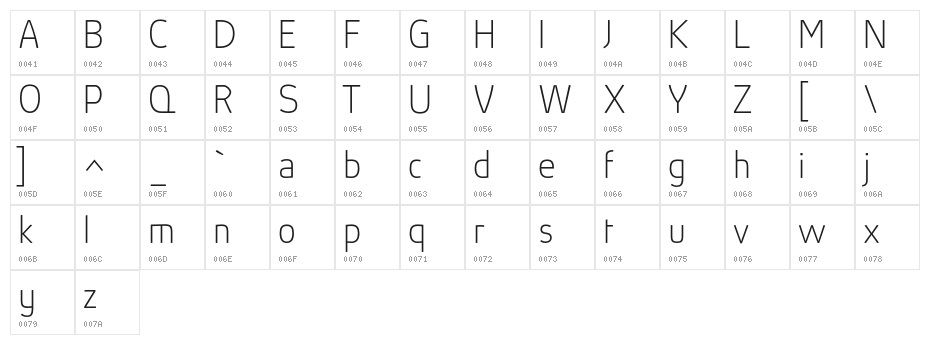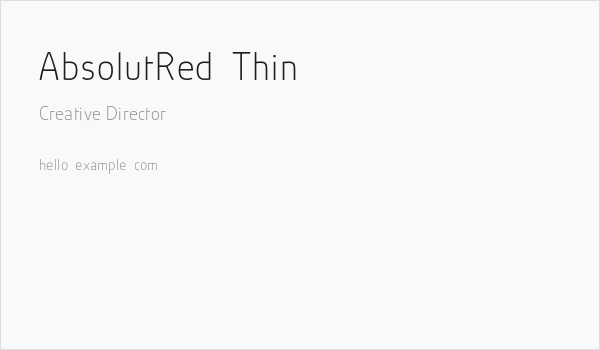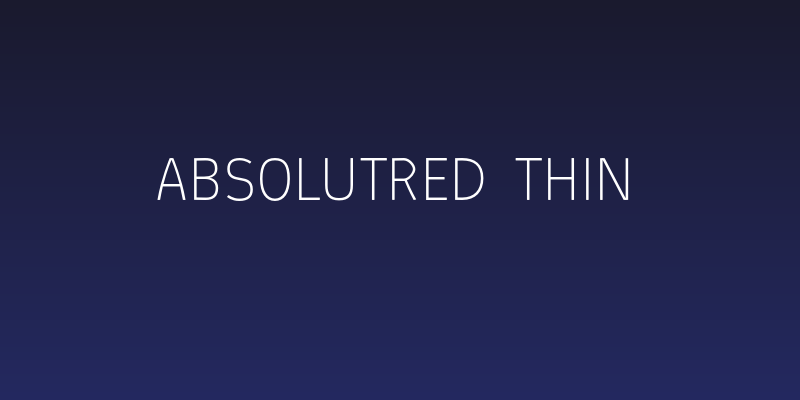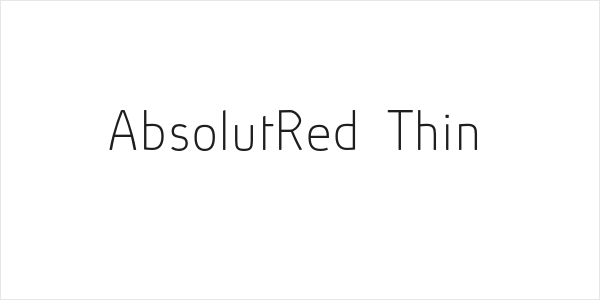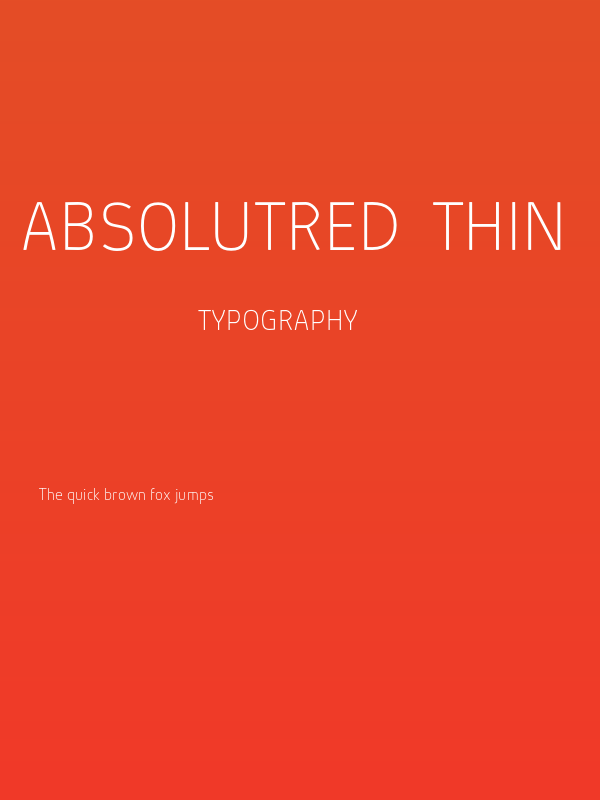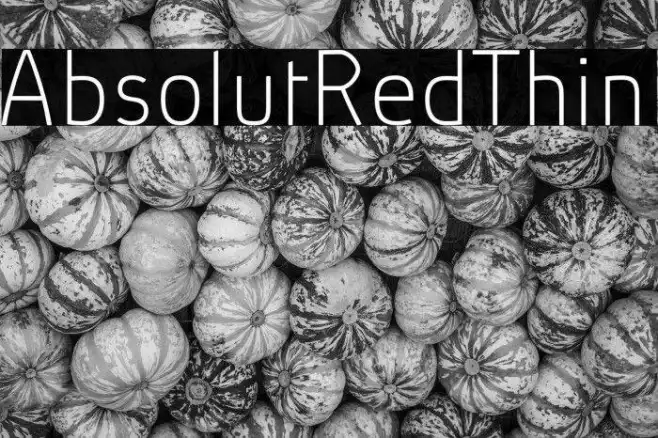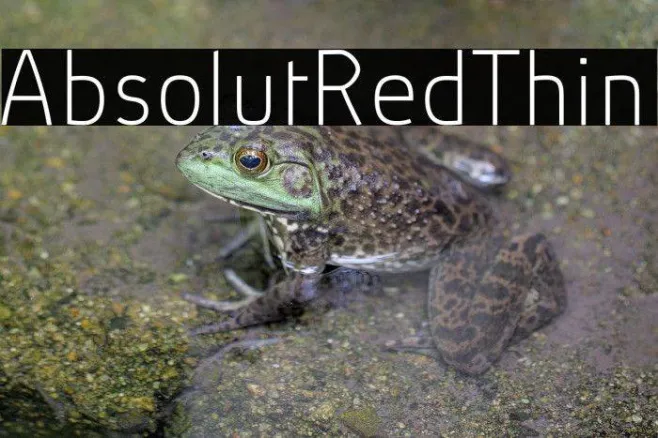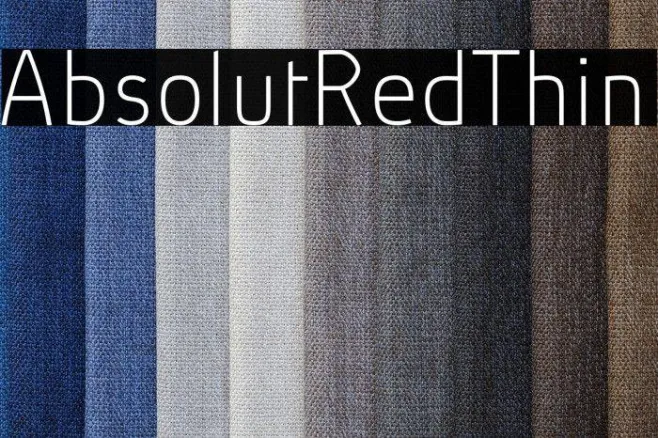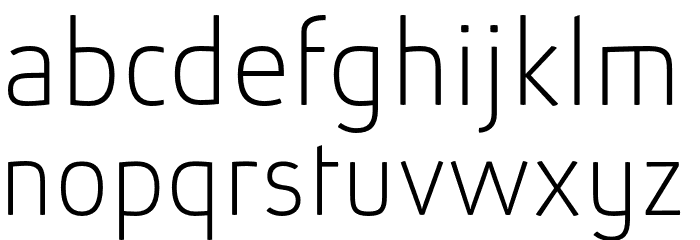
AbsolutRed-Thin Font
This font features a sleek, modern design with clean lines and a minimalist aesthetic. The characters are uniformly thin, creating an elegant and sophisticated appearance. The uppercase and lowercase letters maintain a consistent height and width, contributing to a harmonious and balanced look. The font's geometric shapes and smooth curves make it highly legible, even at smaller sizes. Its simplicity and clarity make it versatile for various design applications, from digital interfaces to print media. The overall style is contemporary, with a touch of elegance that suits modern branding and design projects.
| Proposed Projects | Ideal for modern branding, digital interfaces, minimalist design projects, and print media. |